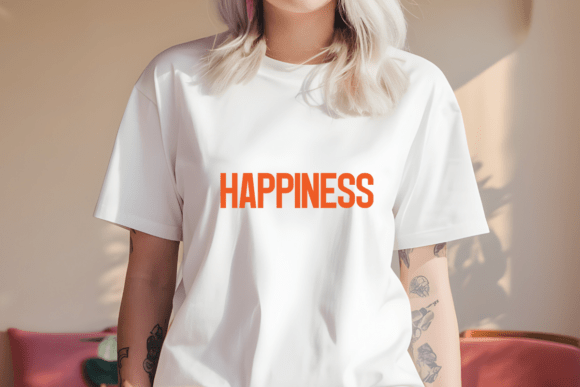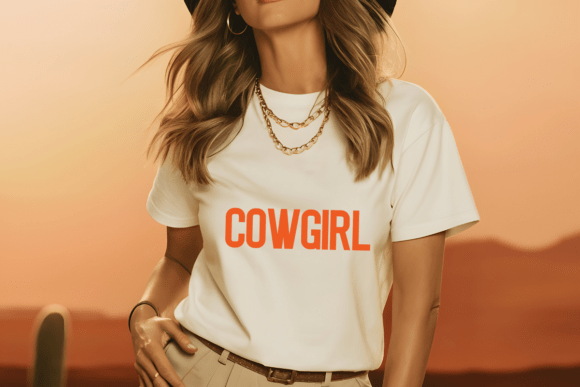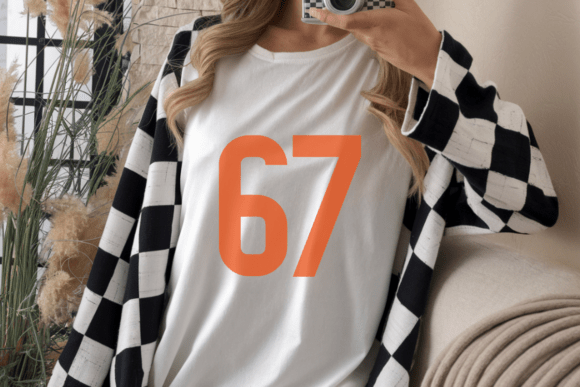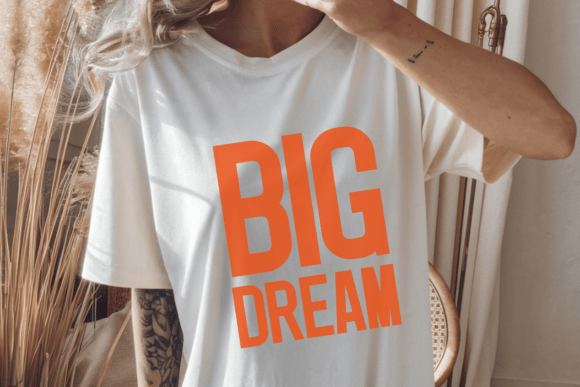
The Ultimate Guide to Funny Couples Font: Adding Humor and Personality to Your Designs
I’ll never forget the time I was working on a project for a client’s anniversary gift – a customized T-shirt with a funny quote about love. I had spent hours searching for the perfect font, but nothing seemed quite right. That was until I stumbled upon Funny Couples Font. Its bold, playful, and vintage vibe instantly caught my attention, and I knew I had found the one. In this article, I’ll share my experience with Funny Couples Font, its features, and how to make the most of it in your designs.
What Makes Funny Couples Font Special?
Funny Couples Font is a joyful and vibrant retro condensed sans serif typeface that’s guaranteed to inject humor and personality into any project. Its bold, thick characters and playful vintage style make it the perfect blend of nostalgia and contemporary fun. This font is specifically designed to bring a smile to your audience, making it incredibly popular for personalized and humorous merchandise.
Here’s what I love about Funny Couples Font:
- ✨ Unique and playful style: Funny Couples Font stands out from more traditional fonts, adding a touch of humor and whimsy to any design.
- ✅ Easily readable: Despite its bold and condensed style, Funny Couples Font remains clear and easy to read, even at smaller sizes.
- ✅ Versatile: This font can be used for a wide range of projects, from T-shirts and mugs to social media content and event posters.
And here are a few quirks to keep in mind:
- ⚠️ Limited use in formal designs: Due to its playful and humorous nature, Funny Couples Font might not be the best choice for formal or professional projects.
- 🤔 Some letters may require adjustment: As with any condensed font, some letters might need adjusting to ensure proper spacing and readability.
- Take advantage of OpenType features, such as glyphs and stylistic alternates, to add variety to your text.
The Story Behind Funny Couples Font
Funny Couples Font was designed with one goal in mind: to bring a smile to people’s faces. Its creator, a passionate typographer, drew inspiration from vintage signs, retro advertisements, and playful handwritten notes. The result is a font that’s equal parts nostalgic and modern, with a dash of humor and whimsy.
| What type of projects is Funny Couples Font best suited for? | Funny Couples Font is perfect for projects that require a playful and humorous touch, such as T-shirts, mugs, social media content, and event posters. |
| Is Funny Couples Font easy to read? | Yes, despite its bold and condensed style, Funny Couples Font remains clear and easy to read, even at smaller sizes. |